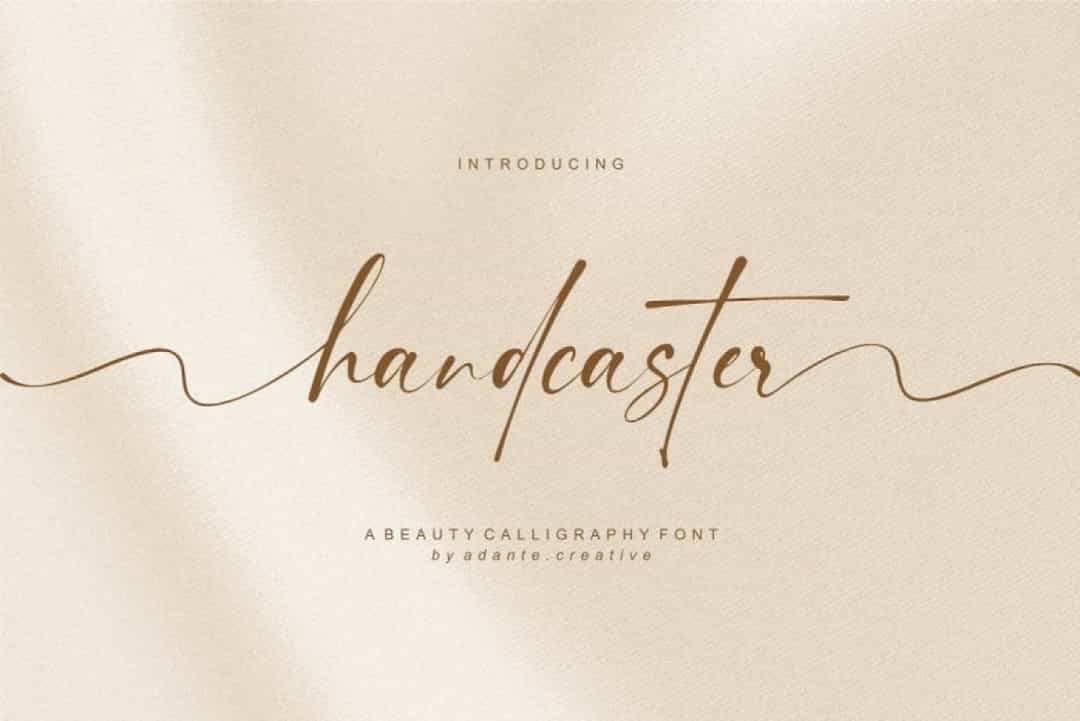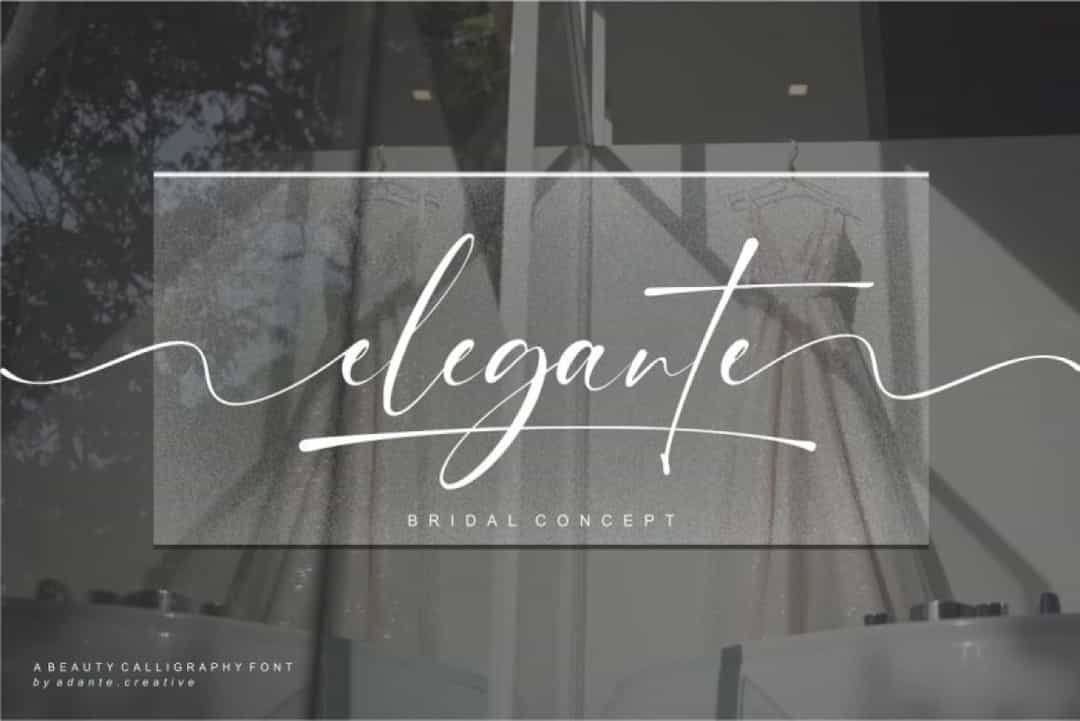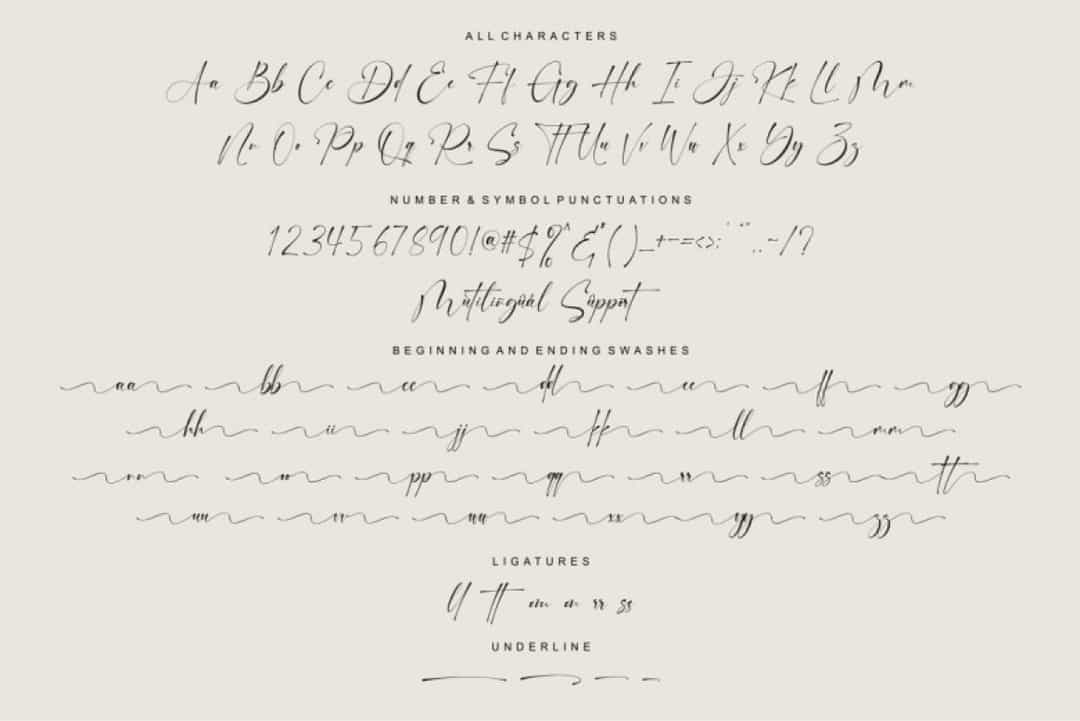
Handcaster is an elegant beauty script calligraphy font perfect for branding, packaging, projects, magazines weddings social media posts or simply to write words on the background. PUA encoded so you have easy access to all glyphs and swashes of this font!